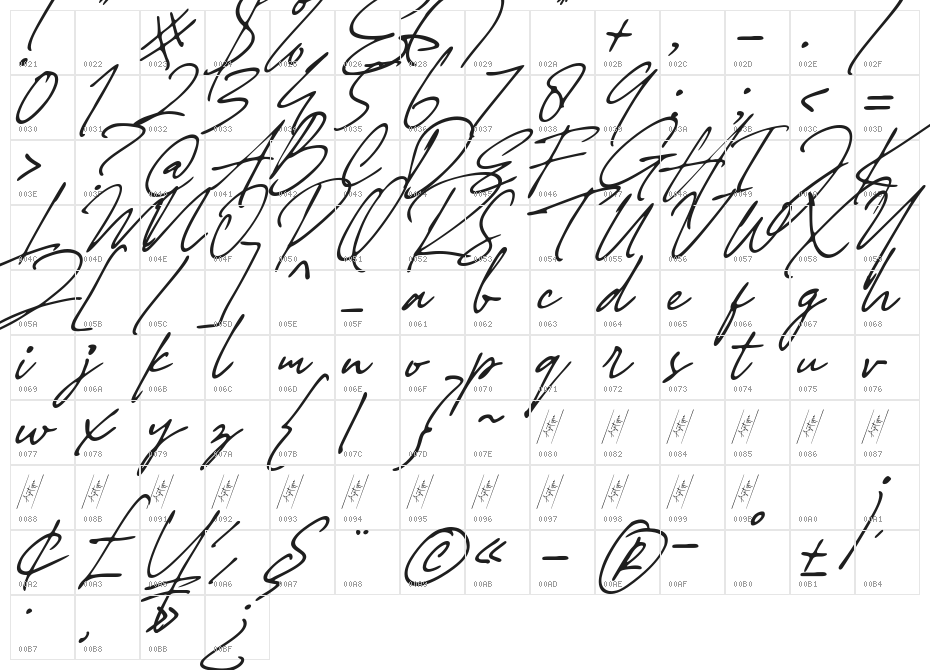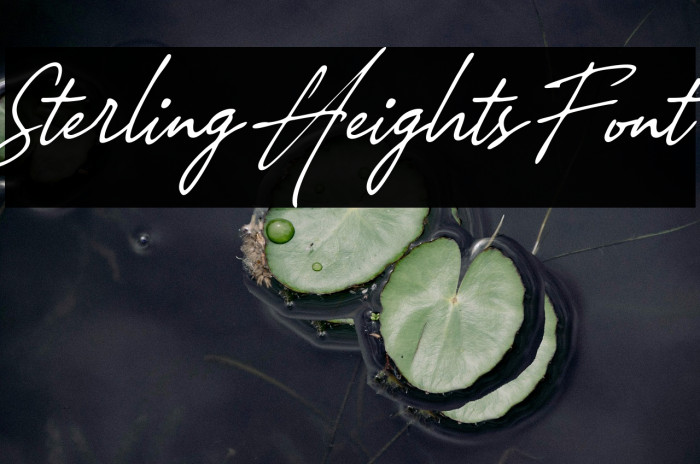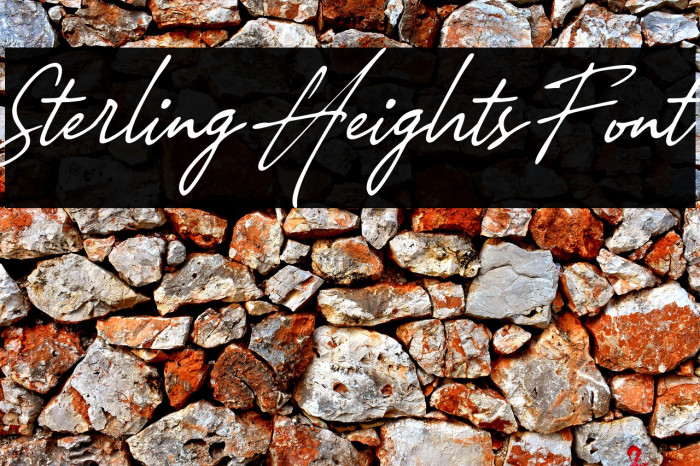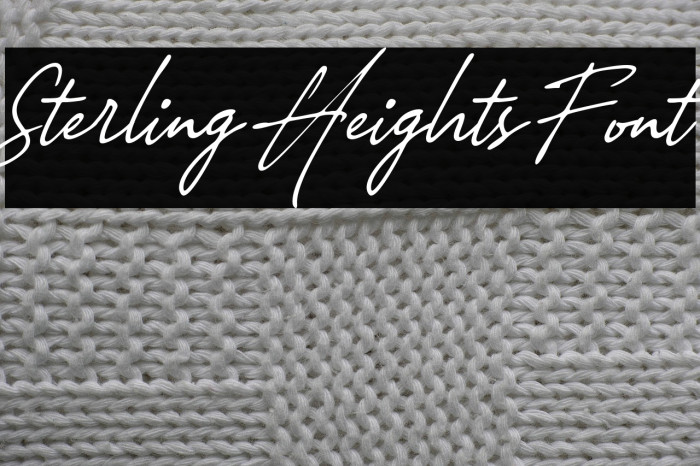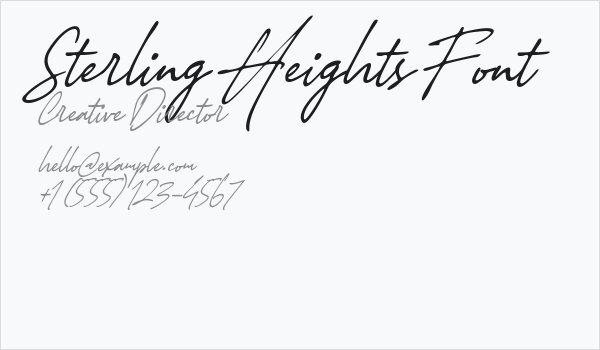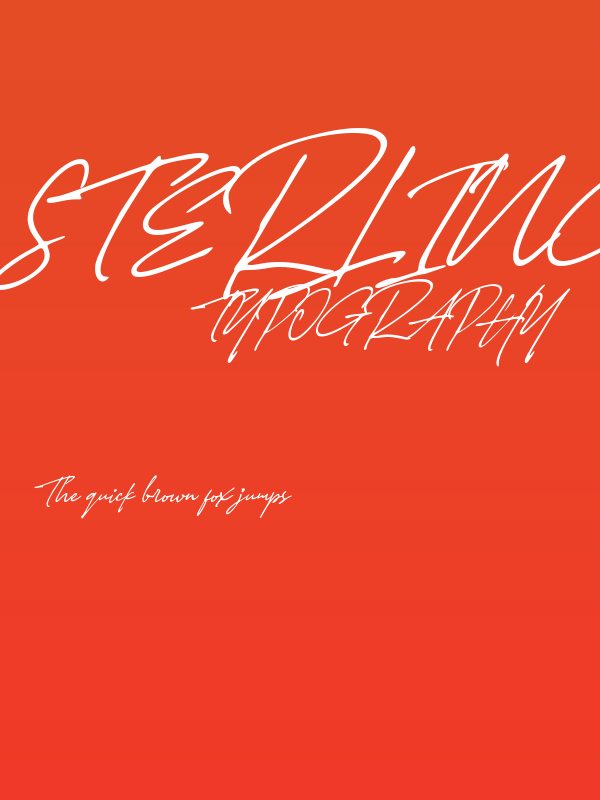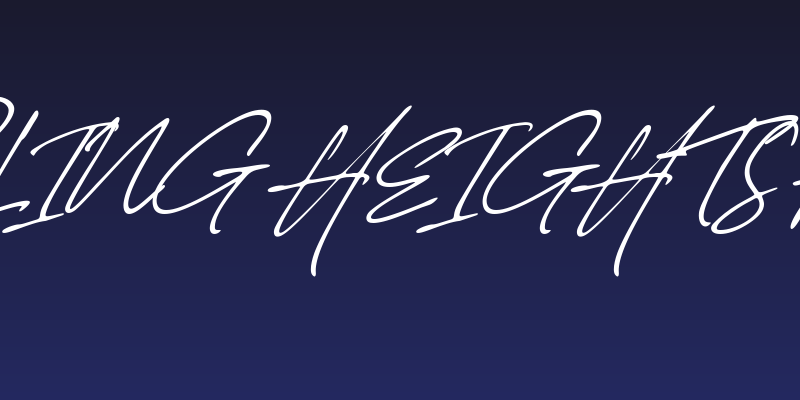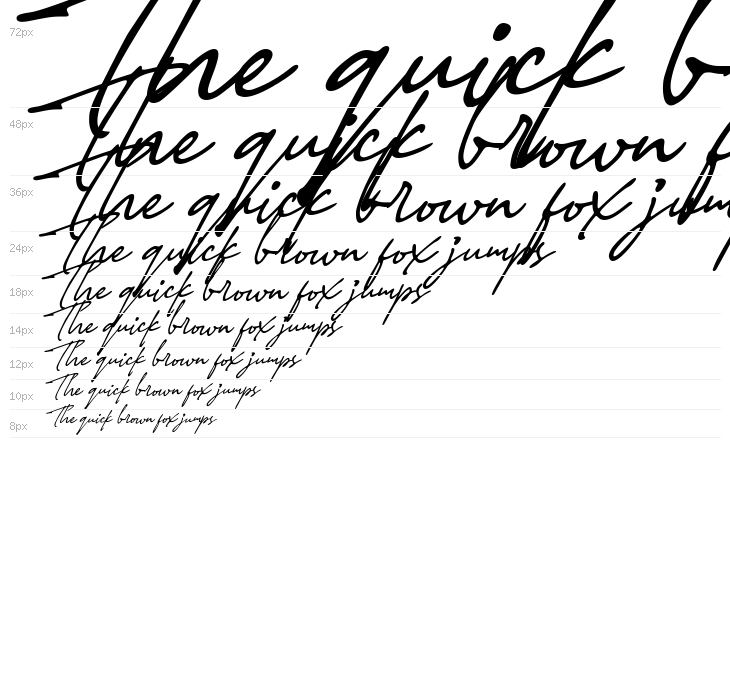
Sterling Heights Font Font
Sterling Heights Font Description
This font exudes a dynamic and expressive style, characterized by its fluid, cursive script that mimics the natural flow of handwriting. The letters are elegantly connected, with a slight slant that adds to its graceful appearance. The uppercase letters are bold and slightly larger, providing a striking contrast to the more delicate lowercase letters. The numbers and special characters maintain the same fluidity, ensuring consistency throughout. This font is perfect for projects that require a personal touch, such as invitations, greeting cards, or branding materials that aim to convey elegance and sophistication.
| Overall Style | Elegant, Expressive |
| Use Case | Headlines, Invitations, Branding |
| Proposed Projects | Ideal for invitations, greeting cards, branding materials, and any project needing an elegant, personal touch. |